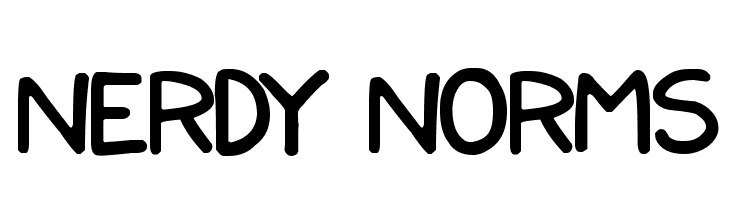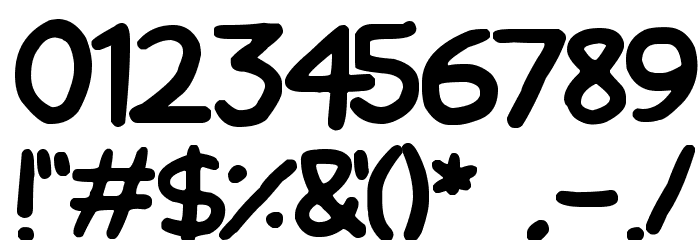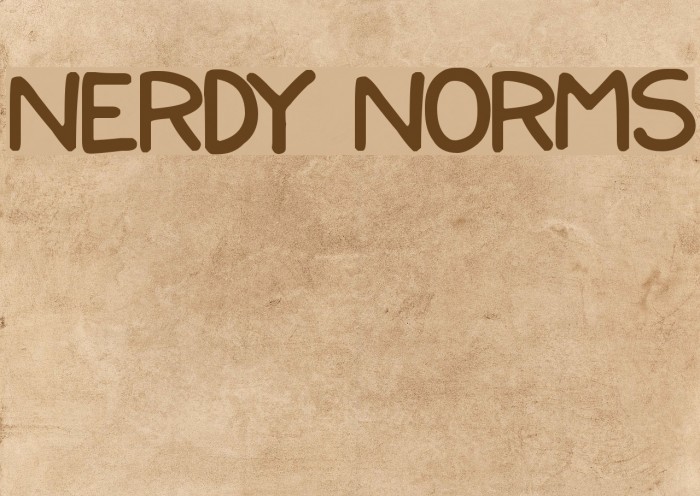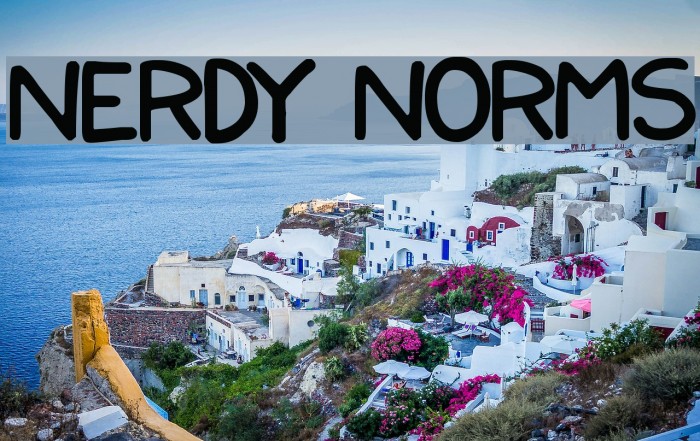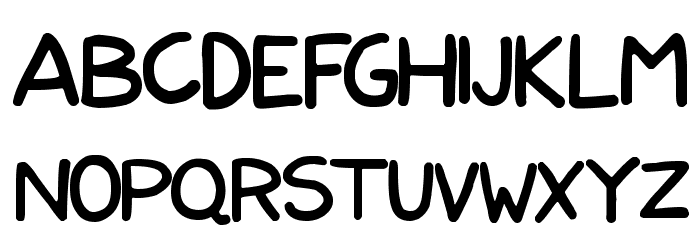
Nerdy Norms Font
This playful and quirky font features rounded, bold characters with a handwritten style that exudes a sense of fun and informality. The letters are slightly irregular, giving them a casual and approachable feel. The numbers and special characters maintain this whimsical style, making the font suitable for creative and lighthearted projects. The overall appearance is friendly and inviting, perfect for capturing attention in a non-traditional way.
A playful, handwritten font with rounded, bold characters.
• Proposed Projects: Ideal for children's books, comic strips, playful branding, and informal invitations.
• Category: Handwritten
• Bold: Yes
• Italic: No
• Weight: Bold
• Width: Normal
• Character Spacing: Normal
• Contrast: Low
• Overall Style: Playful
• Use Case: Headlines, Logos, Informal Text